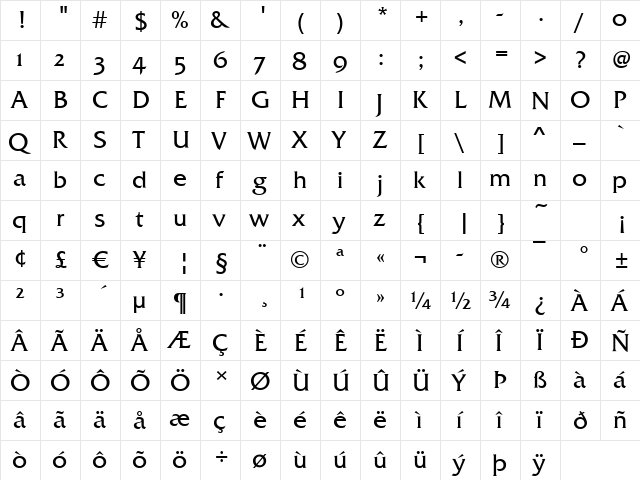
Fremont-Osf Regular
Design Context for Fremont-Osf Typeface
Fremont-Osf is a composed and adaptable typeface that performs quietly and consistently across a wide range of design contexts.